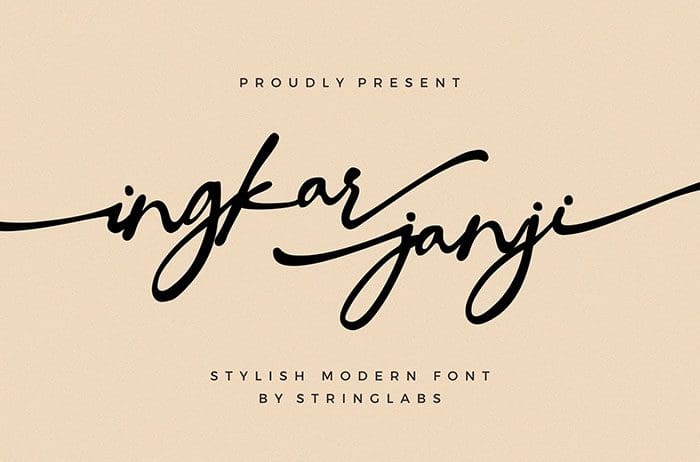
Ingkar Janji Script Font with Stylish and Modern Style. This font is perfect for fashion brand, wedding invitation, business card, logo brand, signature, and also calligraphy. This font is available only for personal use. Created this font by StringLabs. You can also search more free Script Fonts. Thanks.